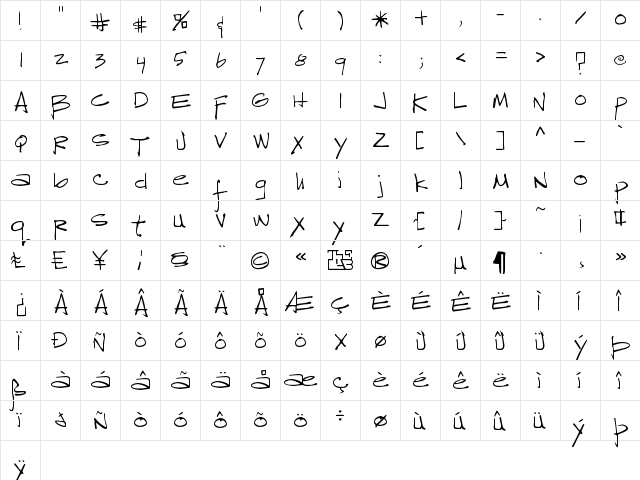
Reprobate Regular Font Preview
Reprobate Regular
Reprobate Regular Font Details
| Designer | Apostrophe |
Design Context for Reprobate Typeface
Reprobate is a composed and adaptable typeface that performs quietly and consistently across a wide range of design contexts.